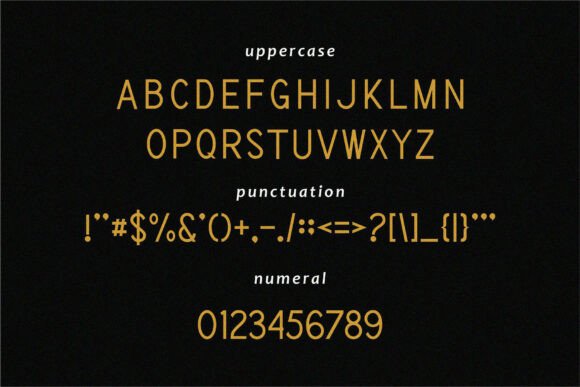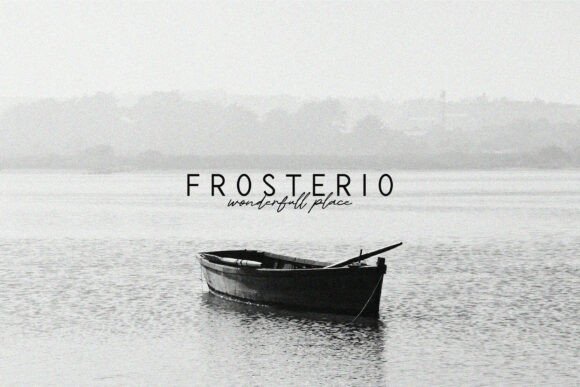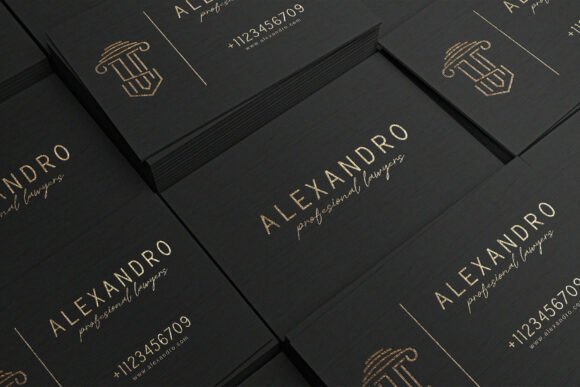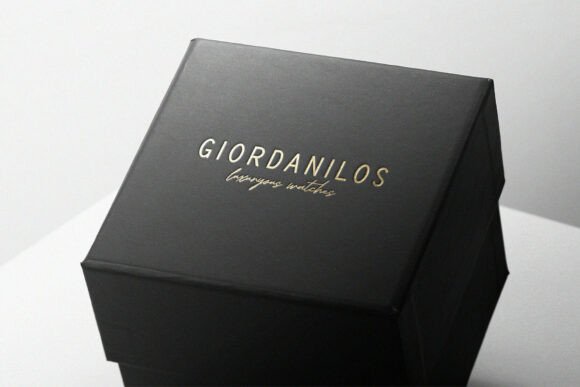
Introducing Hamizen Font: The Bold and Assertive Sans Serif for Your Creative Projects
In the world of typography, a font can make or break a design. It’s the foundation upon which your creative vision is built, and choosing the right one can elevate your project from ordinary to extraordinary. If you’re on the hunt for a bold and assertive sans serif font that can tackle any topic, look no further than Hamizen. This versatile font is poised to become an indispensable asset in your fonts library, capable of transforming your creations with its unique charm.
The Characteristics of Hamizen Font
Hamizen is a bold and assertive sans serif font, designed to make a statement. Its clean lines and modern aesthetic make it perfect for a wide range of applications, from digital media to print. The font’s assertiveness doesn’t compromise its readability; instead, it enhances it, making Hamizen an excellent choice for headings, titles, and any text that needs to stand out.
Key Features of Hamizen:
- Bold and Assertive: Hamizen’s bold strokes and assertive presence ensure your message is delivered with impact.
- Sans Serif: The clean, modern look of Hamizen’s sans serif design makes it versatile for various design needs.
- High Readability: Despite its boldness, Hamizen maintains high readability, making it suitable for both digital and print media.
- Versatile: From headings and titles to short paragraphs, Hamizen can be used across a spectrum of design projects.
Why Choose Hamizen for Your Projects?
Choosing a font for your project can be a daunting task, given the numerous options available. However, Hamizen stands out for several reasons:
Elevate Your Designs
Hamizen’s unique blend of boldness and elegance can instantly elevate your designs. Whether you’re working on a branding project, a website, or marketing materials, Hamizen can help you create a strong visual impact.
Universal Applicability
The versatility of Hamizen means it can be used across various platforms and for different topics. Its neutral yet assertive design ensures it complements your content without overpowering it.
Time-Saving
With Hamizen in your fonts library, you save time that would otherwise be spent searching for the right font for each project. Its wide applicability means you can rely on it for multiple design tasks.
How to Use Hamizen Effectively in Your Designs
To make the most of Hamizen, consider the following tips:
Pairing
Hamizen’s bold presence can be complemented with lighter, more delicate fonts for body text or secondary headings. Experiment with font pairing to find the perfect balance for your design.
Color Choices
The bold nature of Hamizen allows it to stand out in almost any color. Consider contrasting colors to make your text pop, or use it in a color that aligns with your brand identity.
Spacing
Don’t underestimate the power of spacing. Adequate spacing around your text can enhance readability and make your design more visually appealing.
Hamizen is more than just a font; it’s a design statement. Its bold and assertive sans serif style makes it an invaluable addition to any designer’s fonts library. Whether you’re looking to make a strong impact with your headings, create visually appealing marketing materials, or simply need a reliable font for your digital projects, Hamizen is up to the task. With its versatility, readability, and striking appearance, Hamizen is poised to transform your designs and elevate your creative projects to new heights.
Frequently Asked Questions About Hamizen Font
Q: Is Hamizen suitable for digital use?
A: Yes, Hamizen is optimized for digital use, offering clear readability on screens of various sizes.
Q: How does Hamizen compare to other sans serif fonts?
A: Hamizen stands out for its boldness and assertiveness while maintaining high readability, making it a unique addition to any font collection.